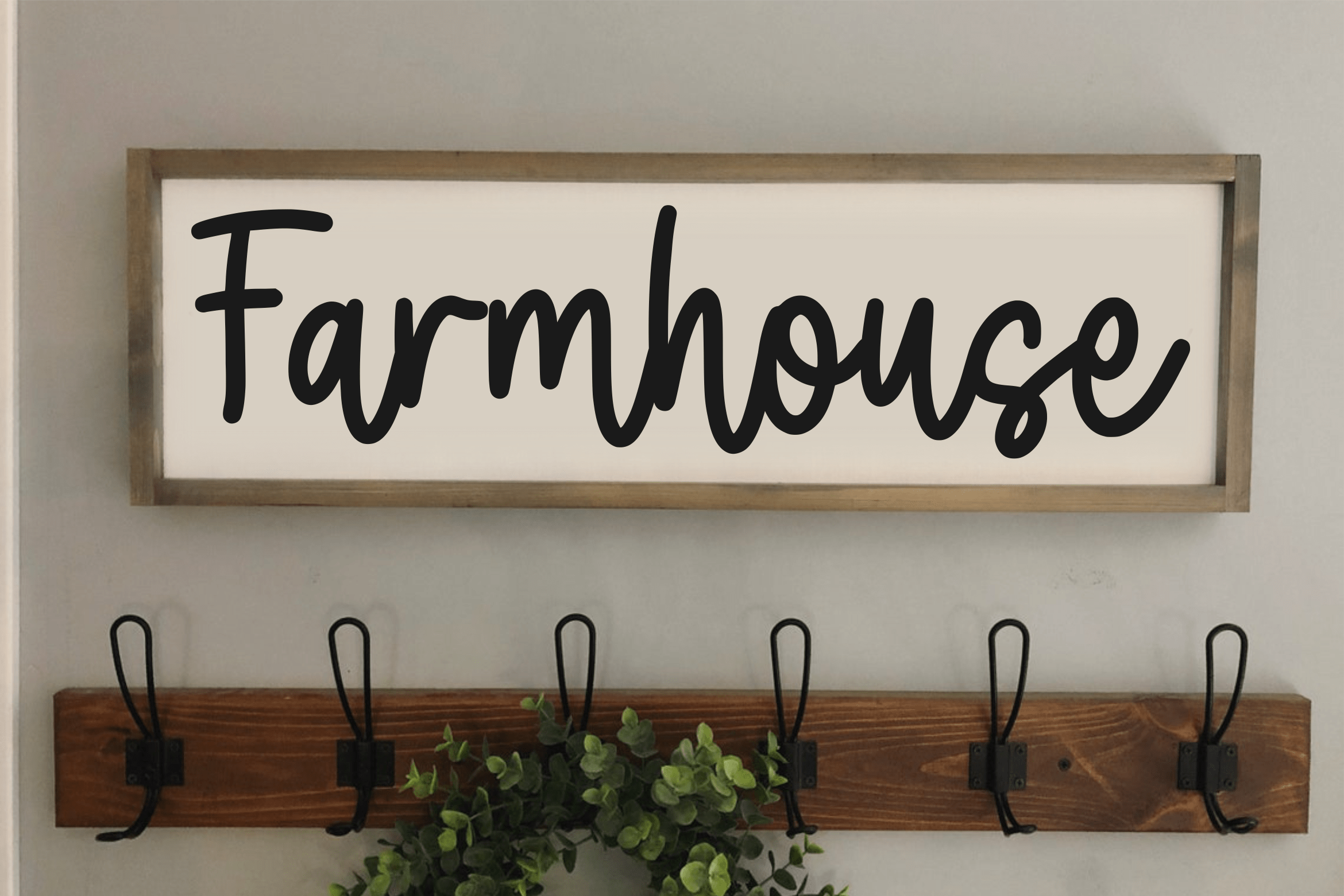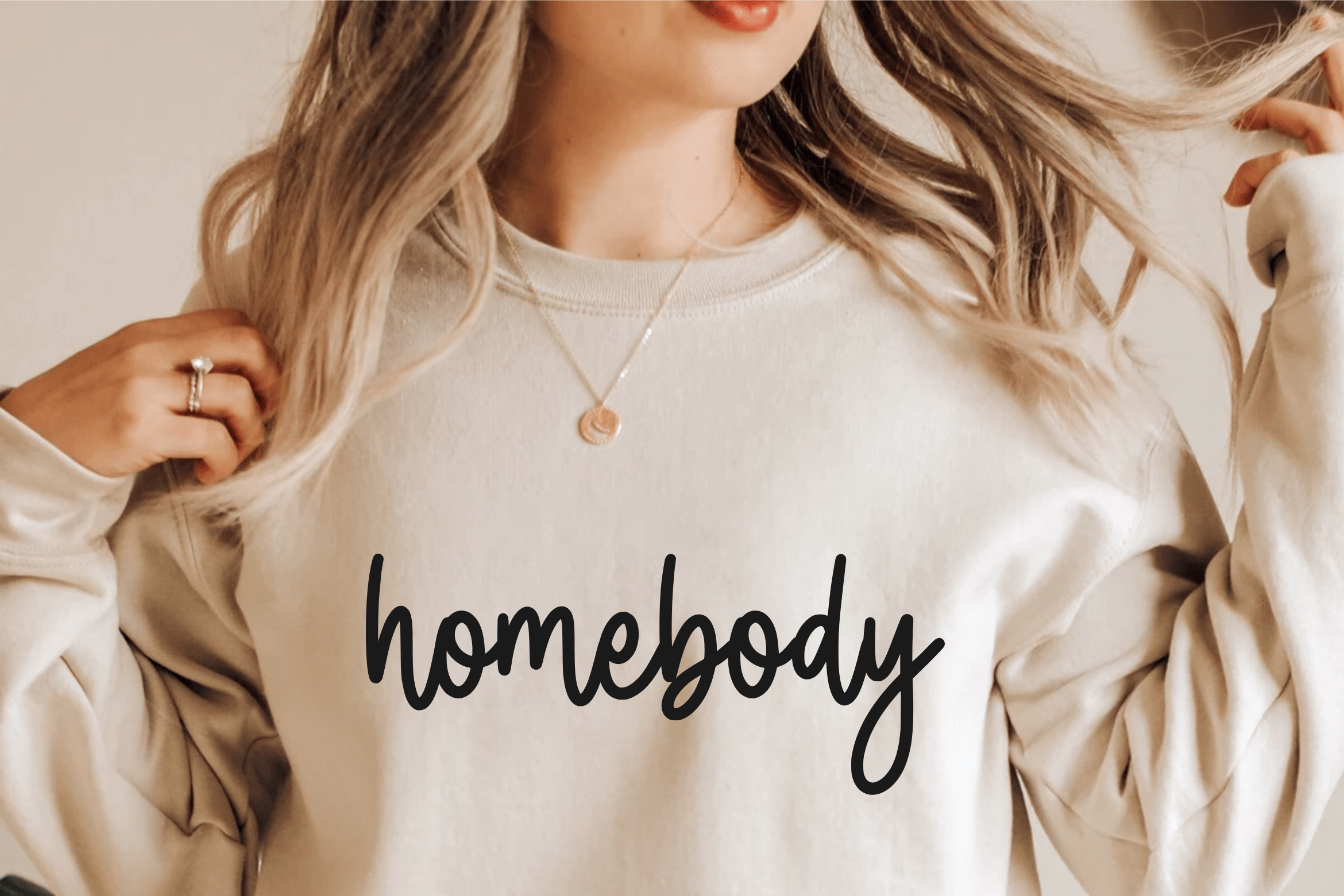
Yellowcean Script Font
This is a delicate and vintage styled script font. It is perfect for product packaging, branding project, magazine cover, social media, wedding, or just used to express words above the background.